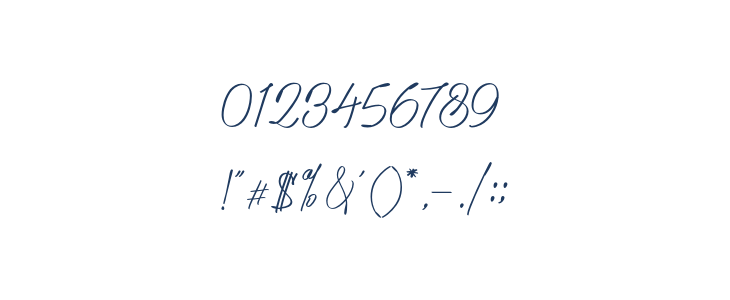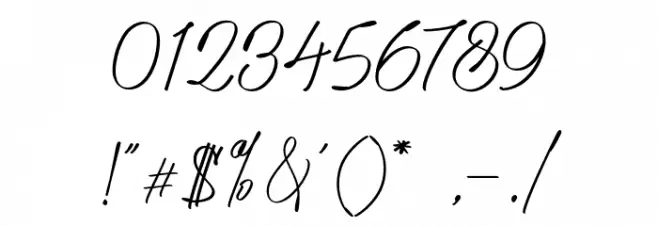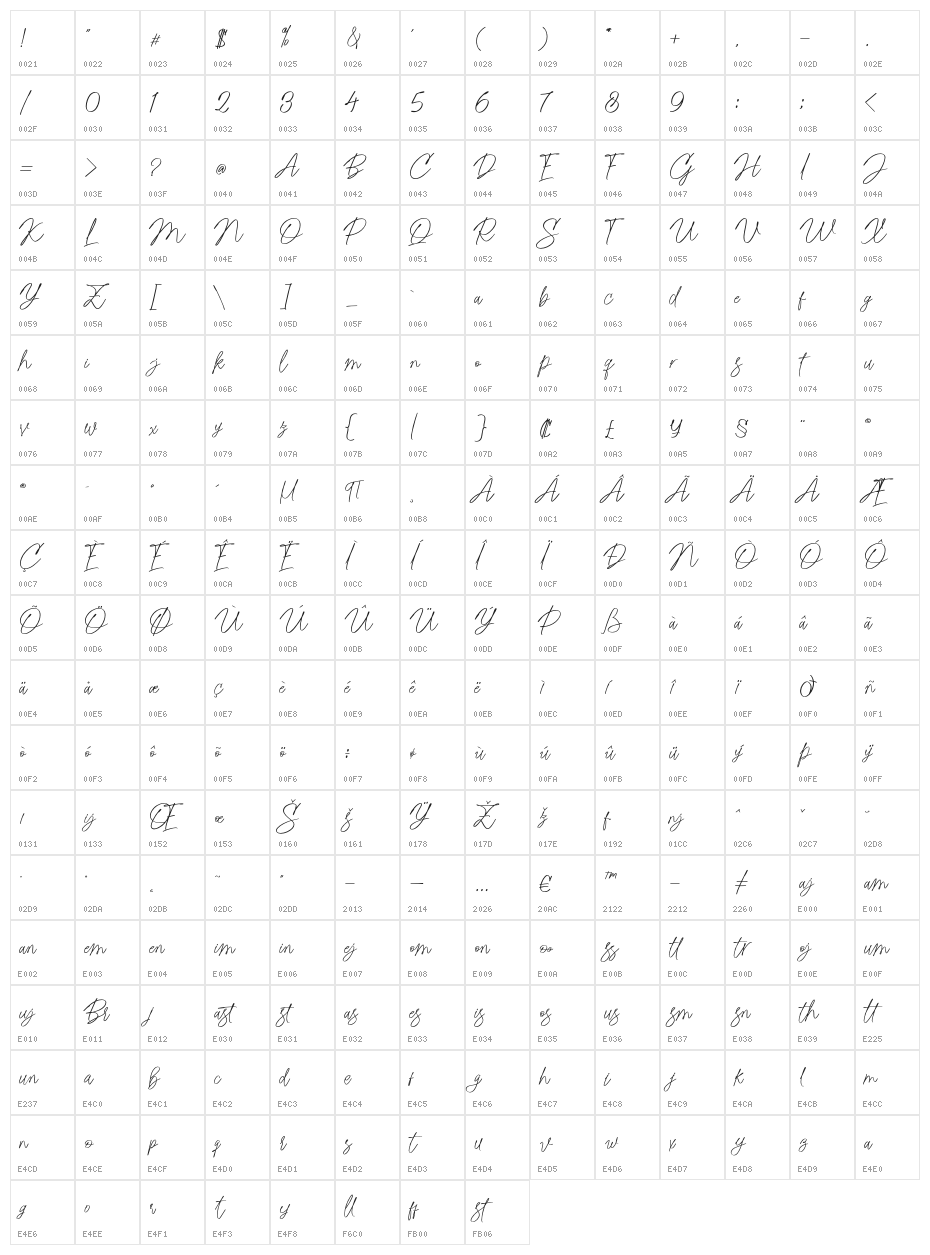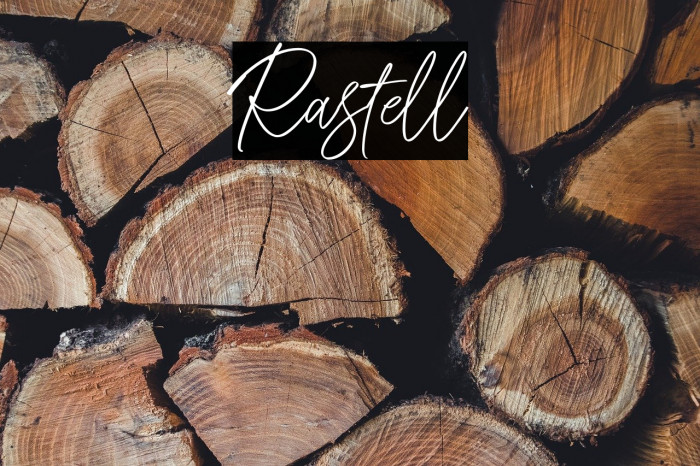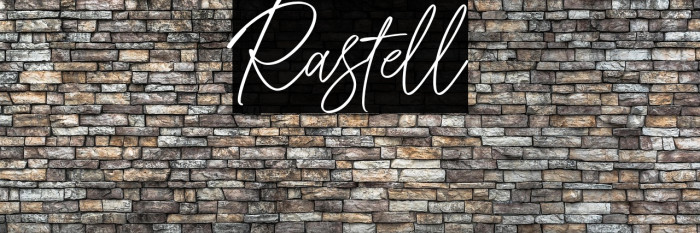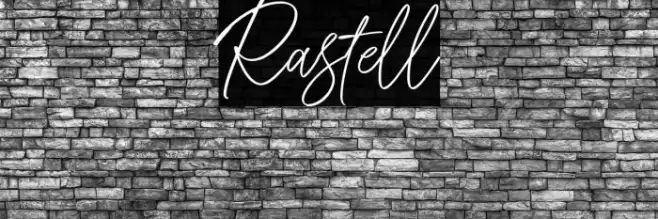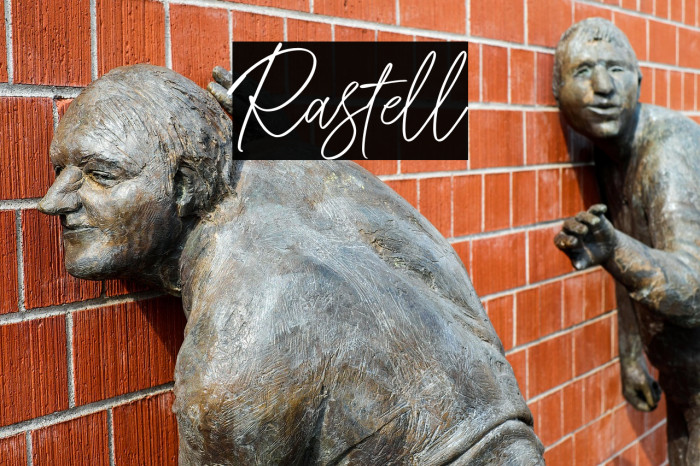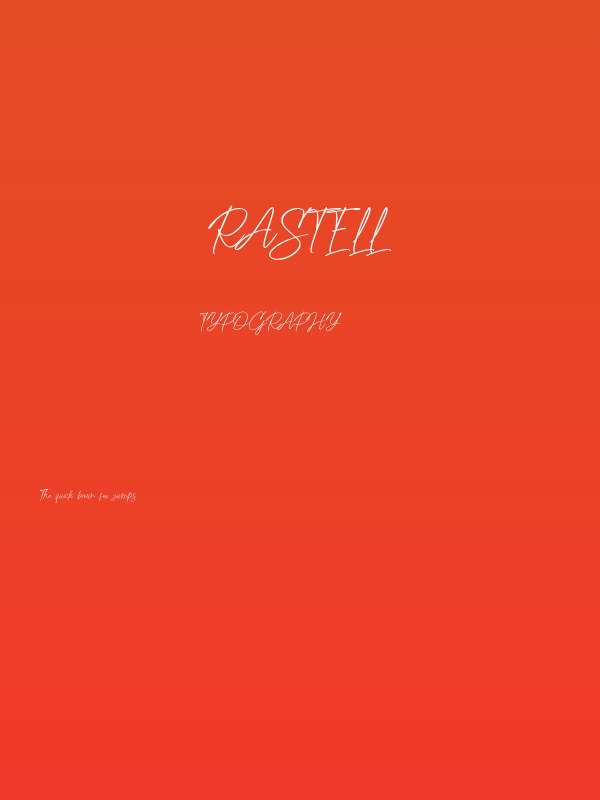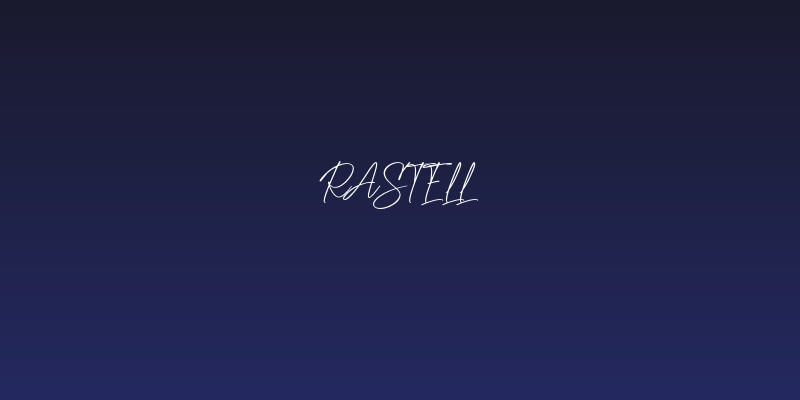
Rastell Font
Rastell Description
This font features a flowing, cursive style that mimics elegant handwriting. The characters are interconnected, creating a seamless and fluid appearance. The uppercase letters are tall and graceful, while the lowercase letters maintain a consistent rhythm with gentle curves and loops. The numerals are stylishly integrated, maintaining the overall script aesthetic. Special characters are thoughtfully designed to complement the alphabet, enhancing the font's versatility. This font exudes a sense of sophistication and personal touch, making it ideal for projects that require a handwritten feel.
Overall StyleElegant, Handwritten
Use CaseLogos, Invitations, Personal Branding
Proposed ProjectsWedding invitations, personal branding, greeting cards, and elegant packaging.